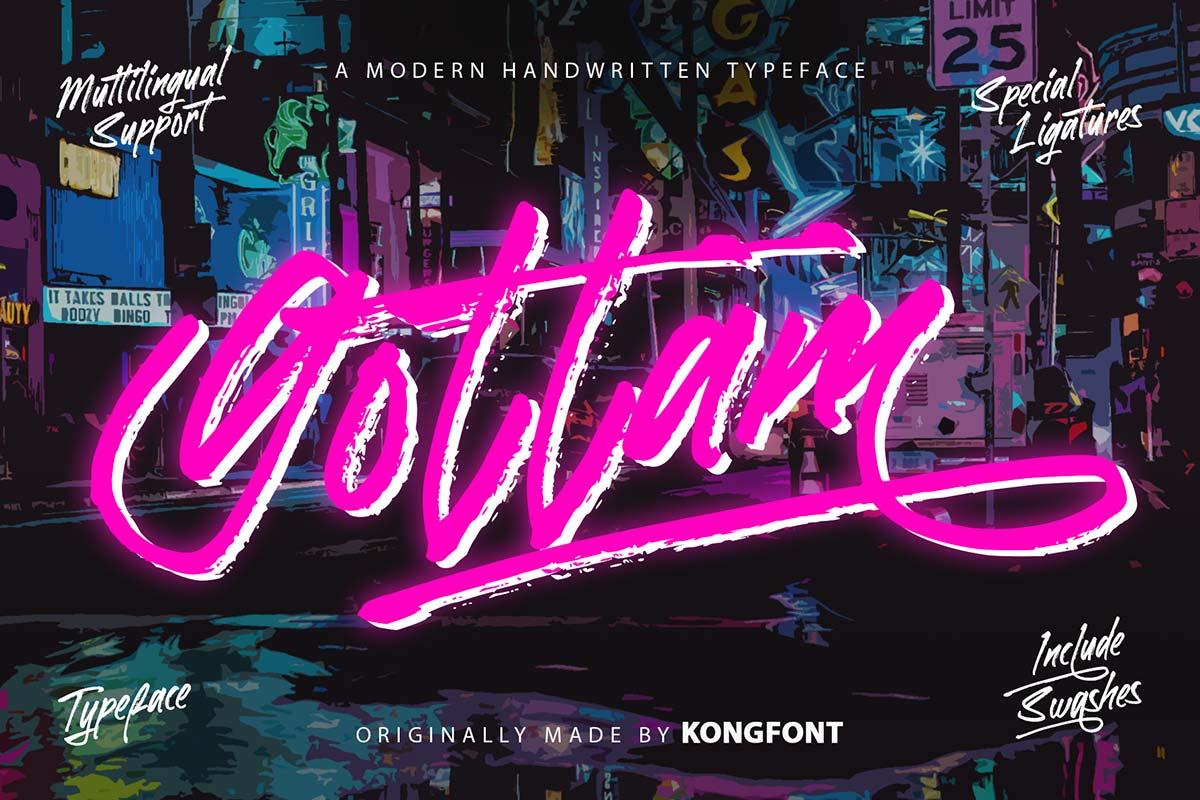
Gottam Font is a hand drawn script font with organic feel. It was made for sports and fitness industry, as it’s highly energetic and active. Bouncing baseline makes this font both playful and unique.
Gottam also contains a full set of lowercase alternates to make your message look awesome. Despite imperfect looks, Gottam is a well thought-through font, with well organised structure.
- Designer: Kong Font